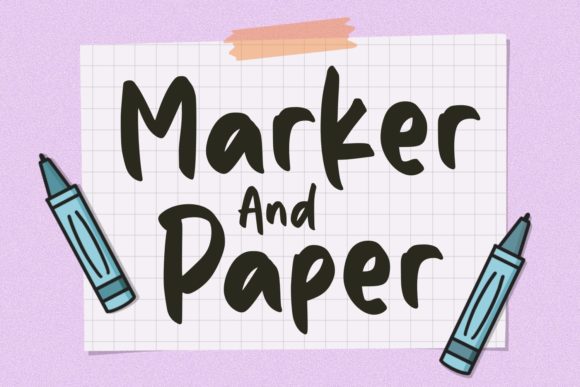
Discover the Marker and Paper Font: A Whimsical Journey into Handwritten Charm
Step into a world where creativity meets fun with the Marker and Paper Font. With its enchanting handwritten style, this script font family will transform your designs into captivating works of art. Gaze upon its graceful strokes and be captivated by its playful charm.
Embark on a Typographic Adventure:
Allow the Marker and Paper Font to whisk you away on an adventure where imagination and expression collide. Let its whimsical nature add a touch of enchantment to your designs and elevate them to new heights. Whether it's creating a magical poster, designing a heartwarming invitation, or crafting a captivating brand identity, Marker and Paper Font will unleash your creativity and captivate your audience.
Feel the Magic of Handcrafted Elegance:
Immerse yourself in the artistry of Marker and Paper Font and let your designs radiate with warmth and authenticity. Its carefully crafted characters evoke a sense of genuine handwriting, adding a personal touch to your creations. Whether you're a seasoned designer or just starting your creative journey, Marker and Paper Font is the perfect companion to bring your visions to life.
Express Yourself with Endless Possibilities:
Embrace the versatility of Marker and Paper Font and explore its boundless applications. Its enchanting script is perfect for adding a touch of whimsy to logos, branding, and packaging design. Create captivating social media graphics, elevate your website's aesthetic, or indulge in the art of hand-lettering with Marker and Paper Font. The possibilities are endless, and your imagination is the only limit.
Ignite Your Creativity with Marker and Paper Font:
Let Marker and Paper Font ignite the passion within you and transform mundane designs into extraordinary masterpieces. With its enchanting charm and playful spirit, this font family will inspire you to create captivating designs that resonate with your audience. Unleash your inner artist and embark on a typographic journey like no other.